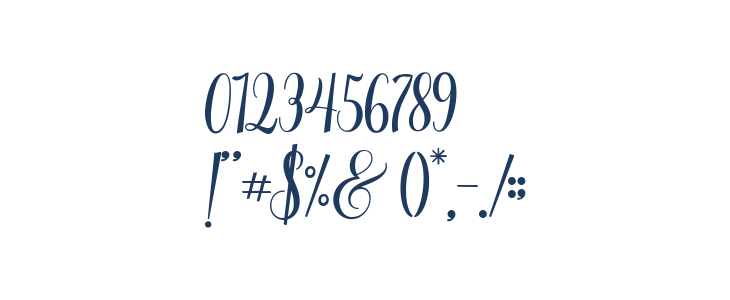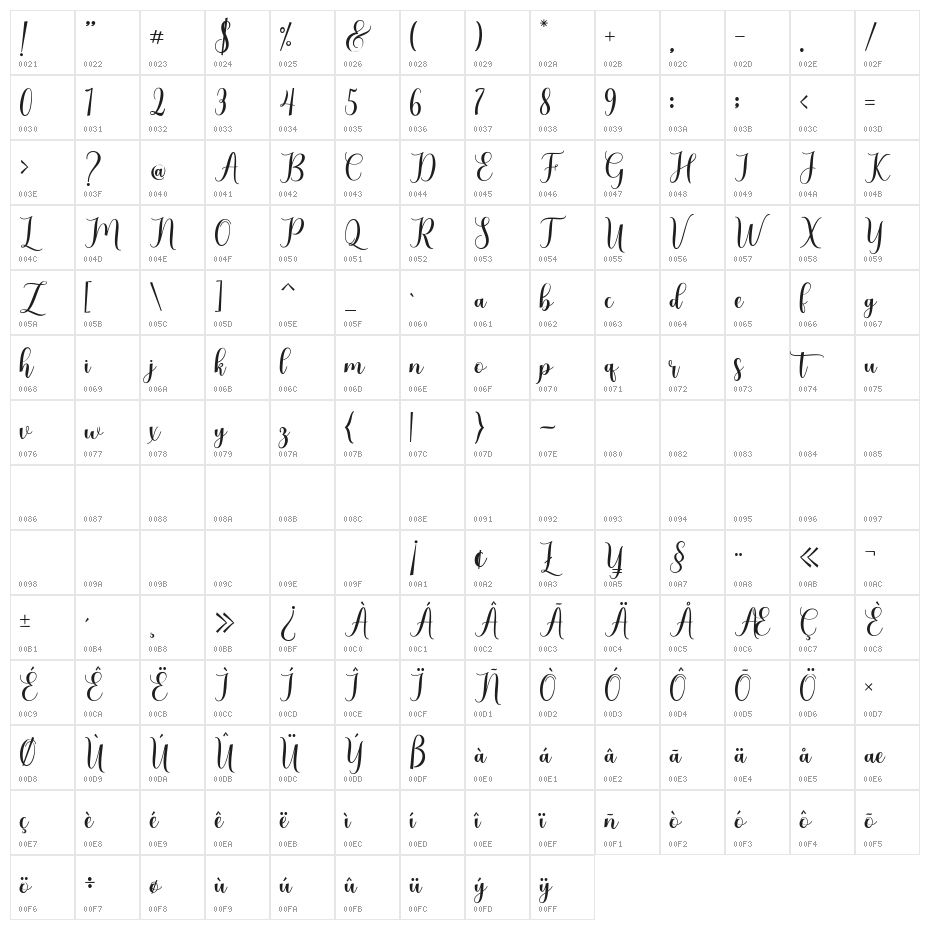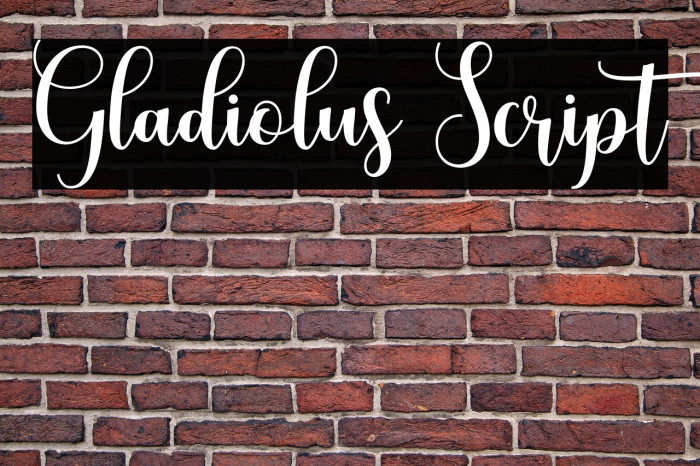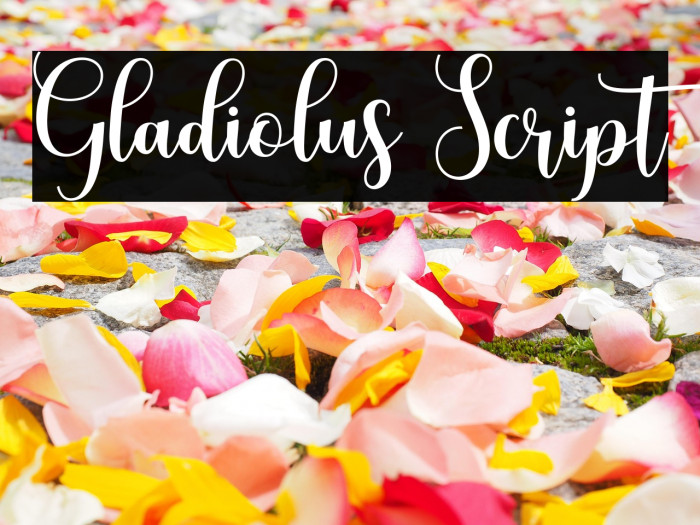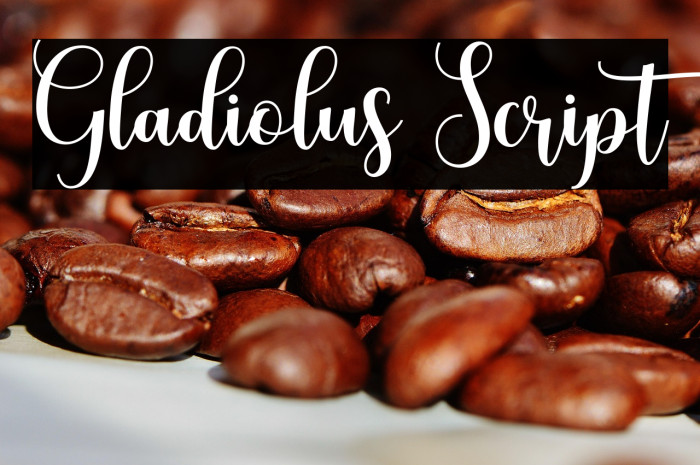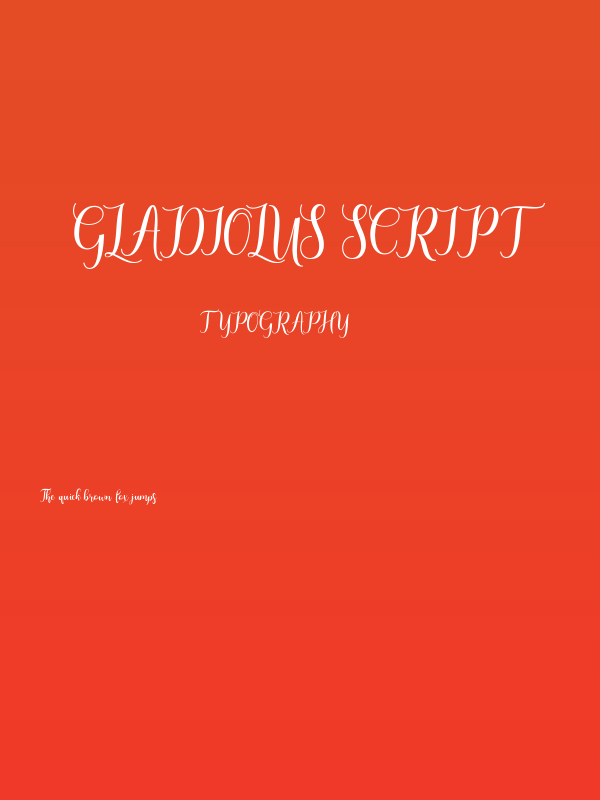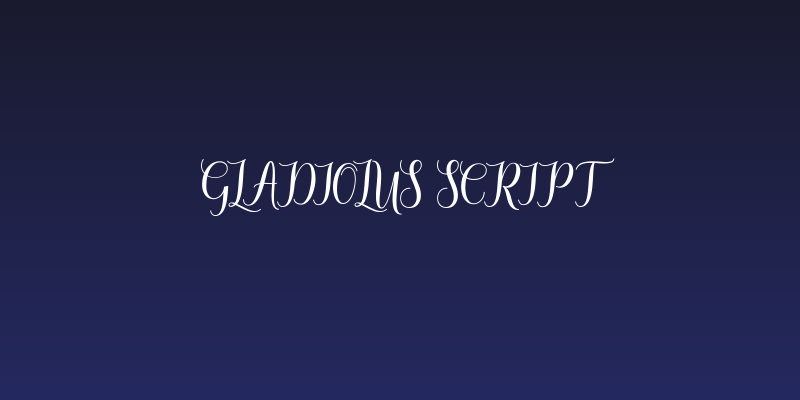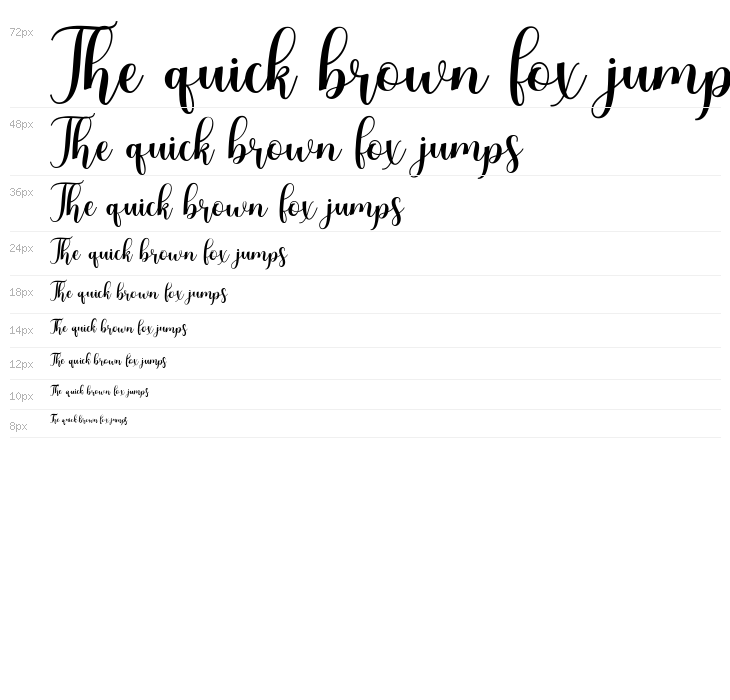
Gladiolus Script Font
Gladiolus Script Description
This font exudes elegance and fluidity, characterized by its script style that mimics the natural flow of handwriting. The uppercase letters are ornate, with sweeping curves and flourishes that add a touch of sophistication. The lowercase letters maintain a consistent style, offering a harmonious blend of loops and tails that enhance readability while preserving the artistic flair. The numerals are distinct and stylish, complementing the overall aesthetic. Special characters are thoughtfully designed to match the font's graceful appearance, making it suitable for creative and formal applications.
| Overall Style | Elegant, Artistic |
| Use Case | Headlines, Invitations, Branding |
| Proposed Projects | Ideal for wedding invitations, greeting cards, branding projects, and elegant packaging designs. |